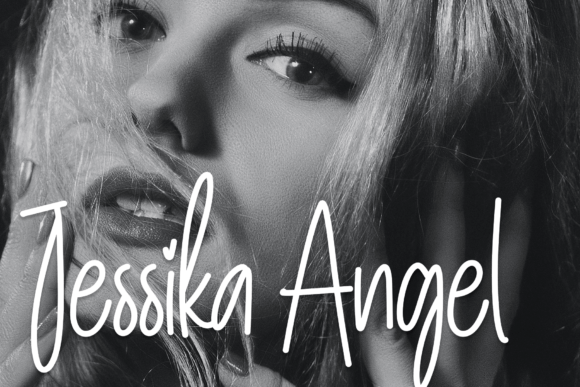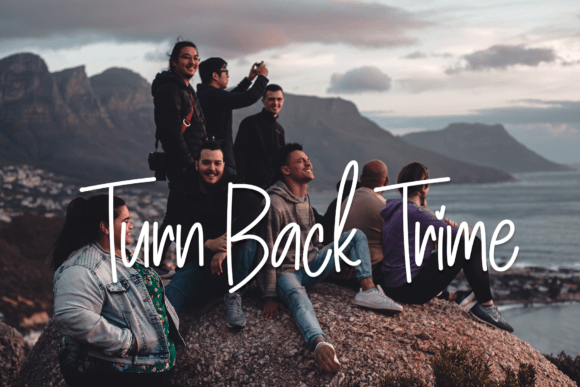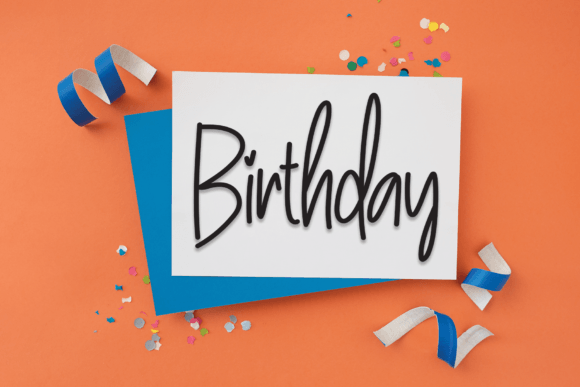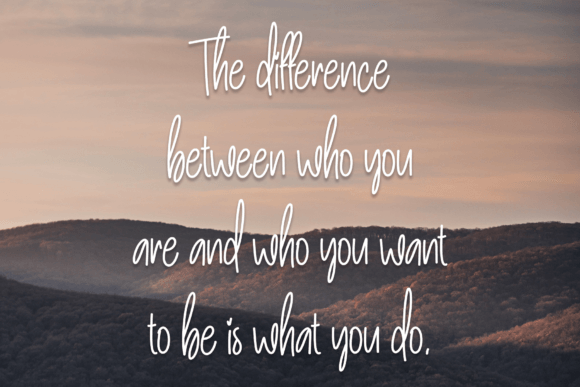
Starry Night Font
Starry Night Handwritten Font – Sweet and Friendly Typeface
The Starry Night Handwritten Font is a charming and versatile typeface designed to bring warmth and creativity to your projects. With its natural handwritten strokes and approachable style, it adds a personal touch that makes designs stand out. Whether you’re working on invitations, digital graphics, or DIY crafts, this font helps your work shine with personality.
A Unique Handwritten Style
The Starry Night Handwritten Font combines authenticity with elegance. Its balanced curves and flowing strokes make it a beautiful option for creative projects. The handwritten look ensures each design feels personal, while its clear readability makes it practical for both casual and professional applications.
Designers often choose the Starry Night Handwritten Font for invitations, thank-you notes, and greeting cards. Its sweet and friendly strokes create a heartfelt mood, making every message feel warm and genuine. It also adapts well to posters, social media content, and decorative stationery.
Versatility for Creative Projects
The Starry Night Handwritten Font is not limited to personal projects—it also works beautifully for branding, product packaging, and digital content. Its friendly, natural look makes it adaptable to a wide range of uses, from business logos to handmade crafts.
Why Designers Love Starry Night Font
Designers appreciate fonts that offer both style and usability. The Starry Night HandwrittenFont provides a unique handwritten appeal while maintaining clarity. Its sweet and versatile nature makes it a valuable addition to any designer’s collection.
In summary, the Starry Night HandwrittenFont is a sweet, friendly, and versatile typeface. With its handwritten flow, easy installation, and wide usability, it is perfect for invitations, cards, branding, and creative projects. Don’t miss the chance to download Starry Night HandwrittenFont and bring a personal, heartfelt touch to your next design.